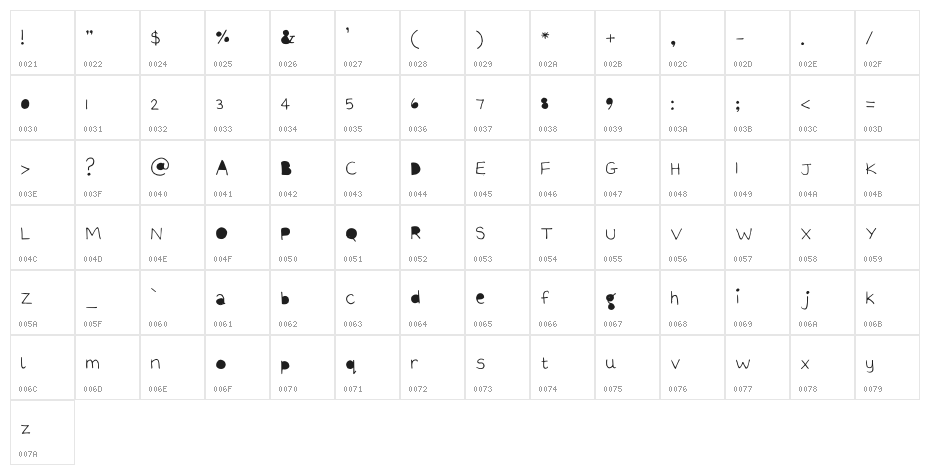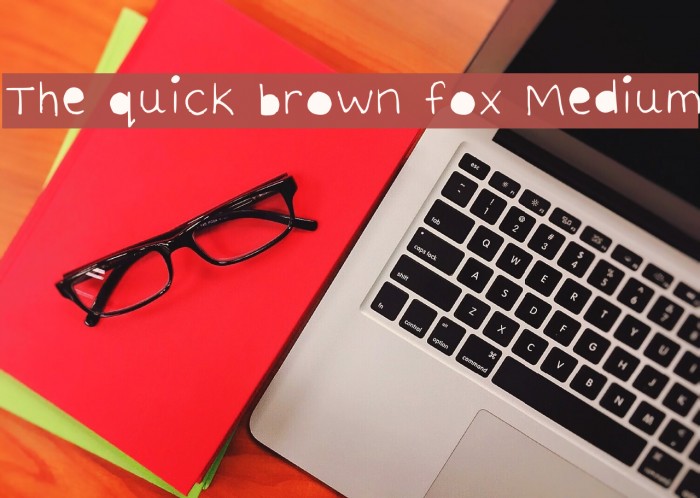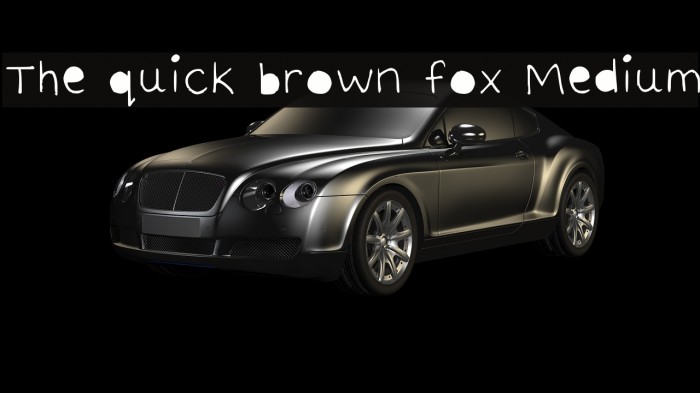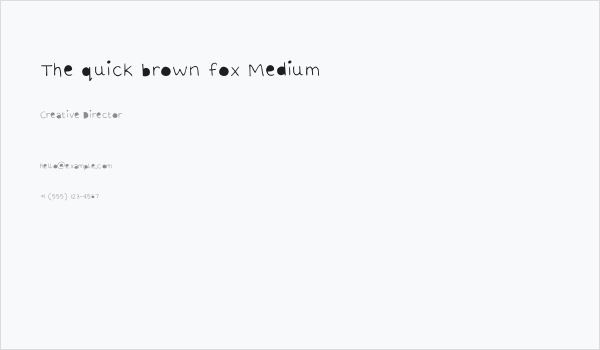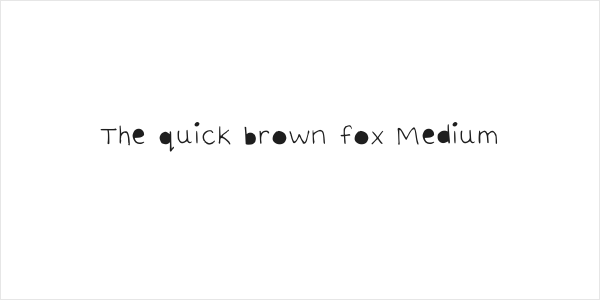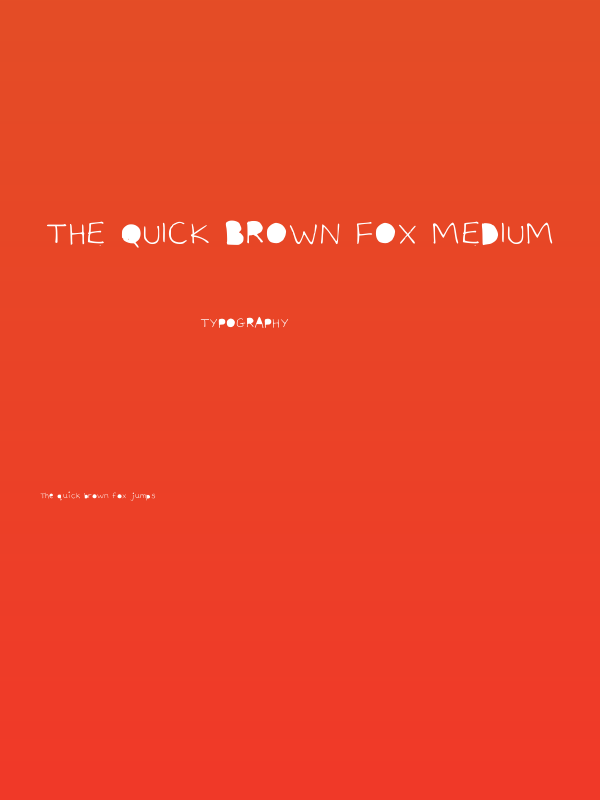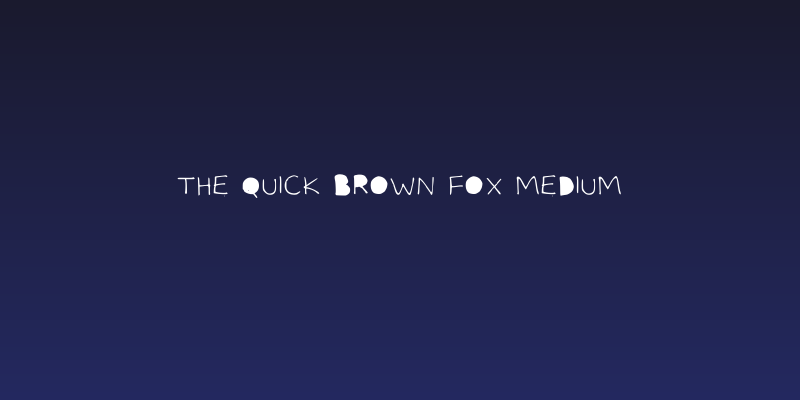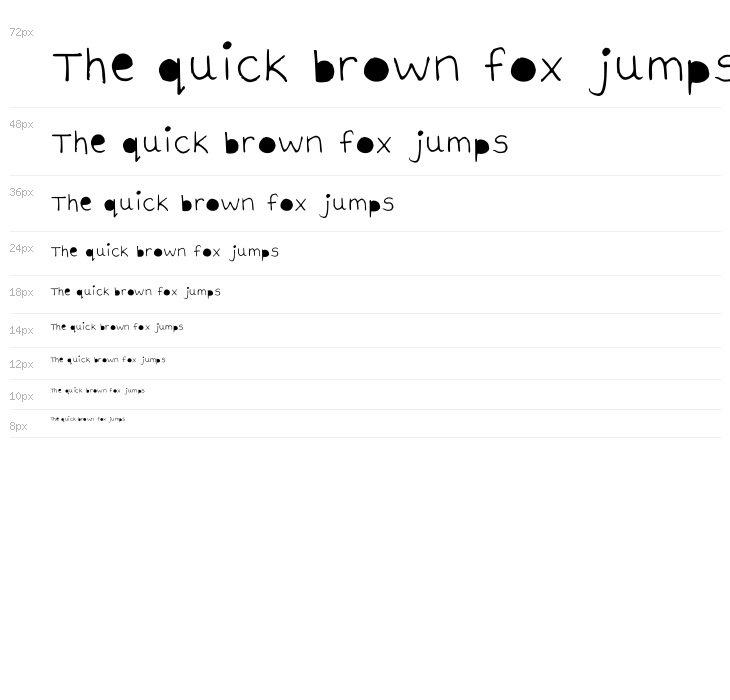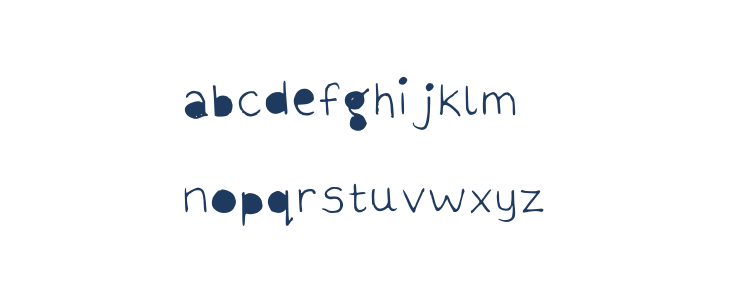
The quick brown fox Medium Font
The quick brown fox Medium Description
This font features a playful and whimsical design, characterized by its uneven stroke widths and slightly irregular letterforms. The uppercase letters have a bold presence with a quirky, hand-drawn feel, while the lowercase letters maintain a consistent style that complements the uppercase. The numbers and special characters follow the same playful aesthetic, making the font suitable for creative and informal projects. The overall appearance is casual yet distinctive, with a touch of artistic flair that adds personality to any text.
| Proposed Projects | Ideal for children's books, creative posters, playful branding, and informal invitations. |